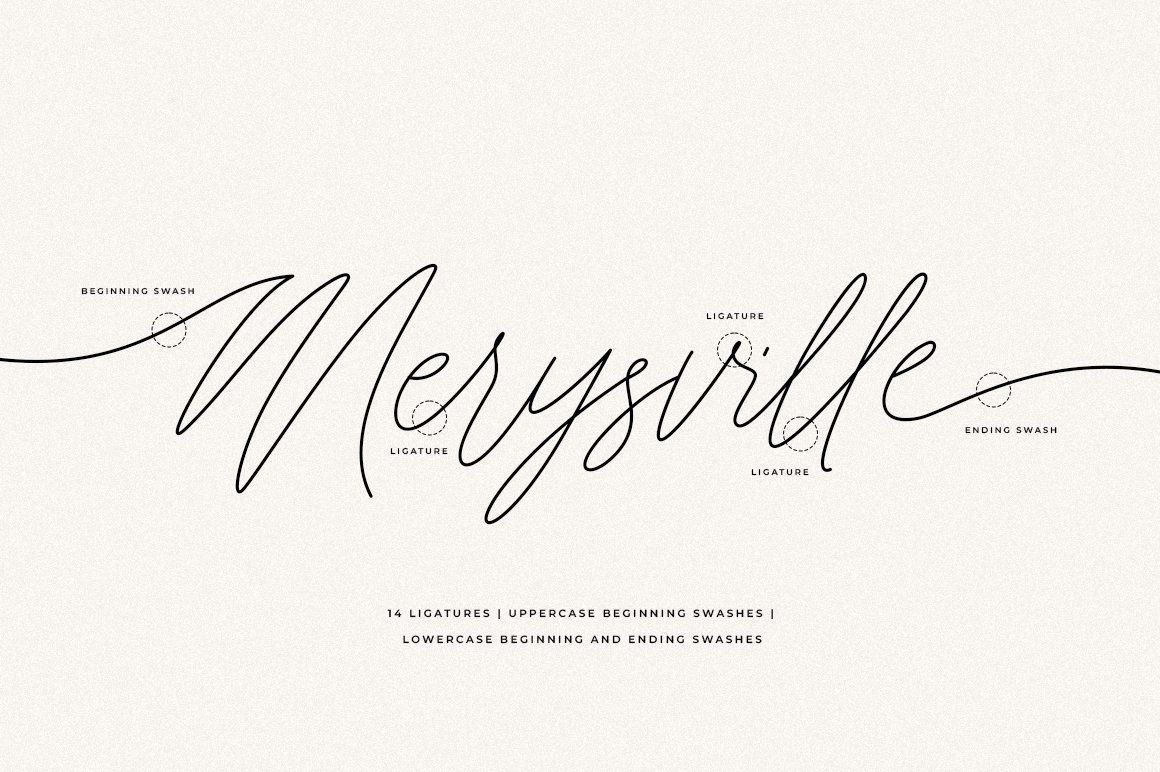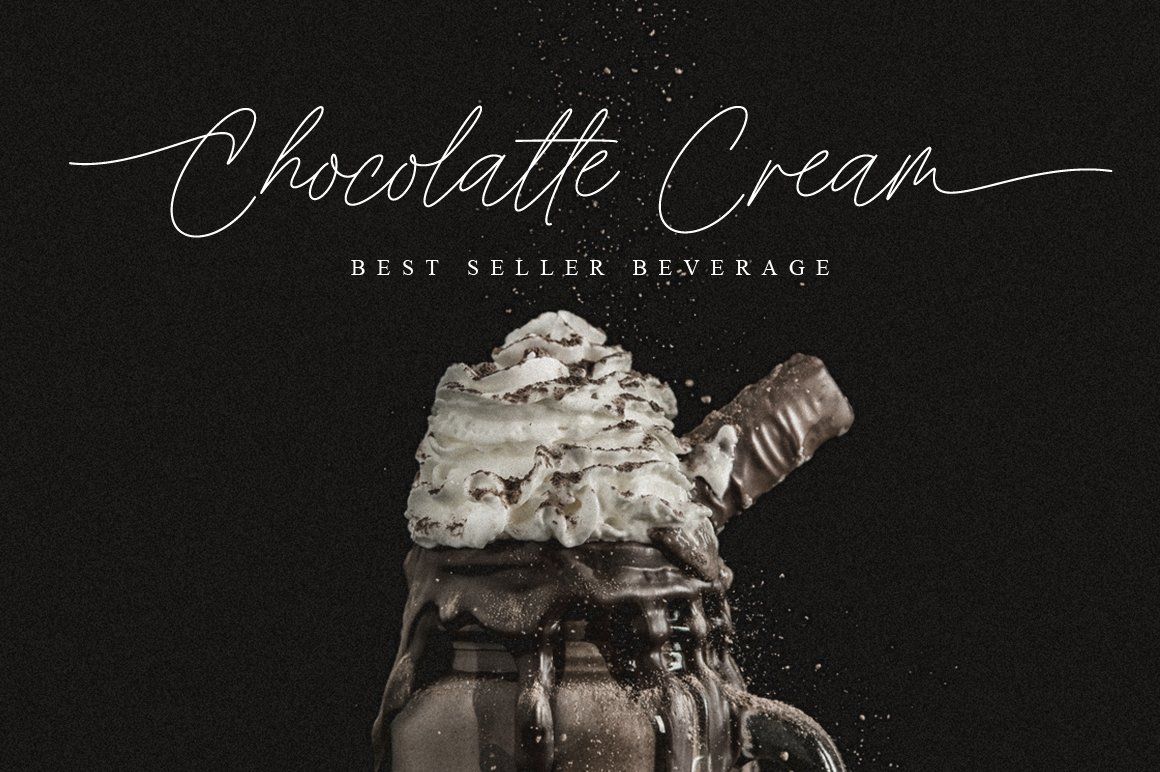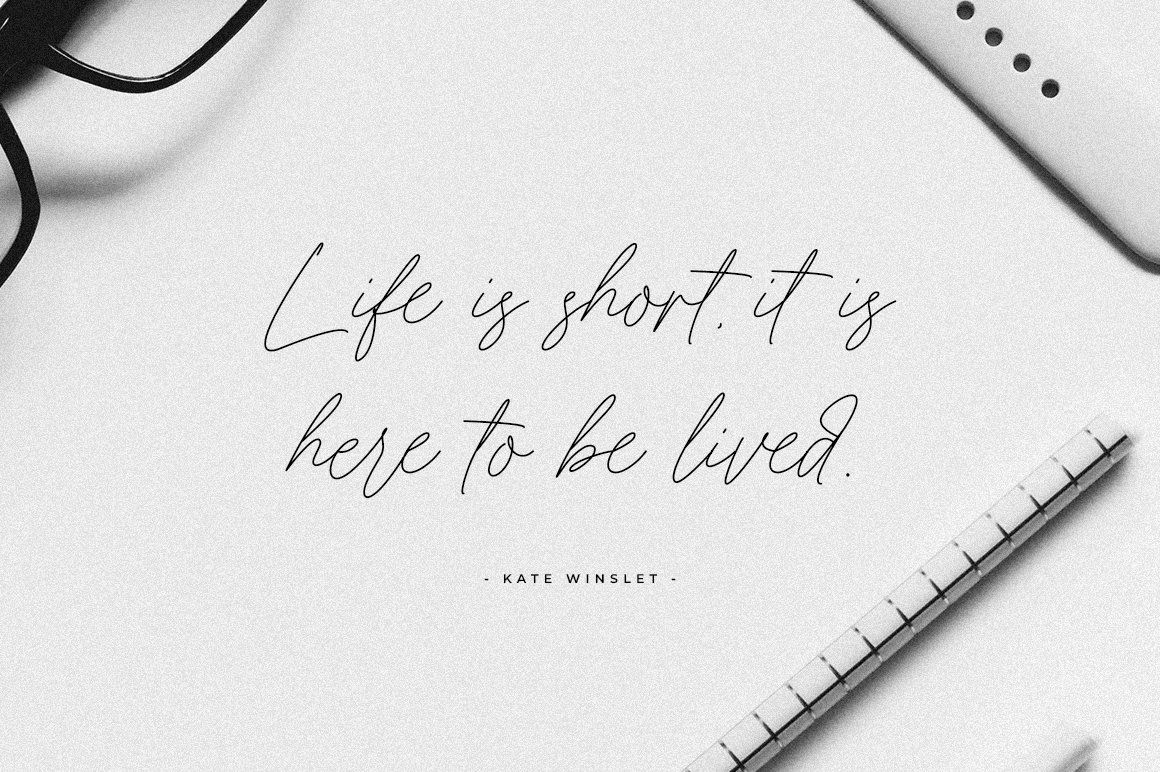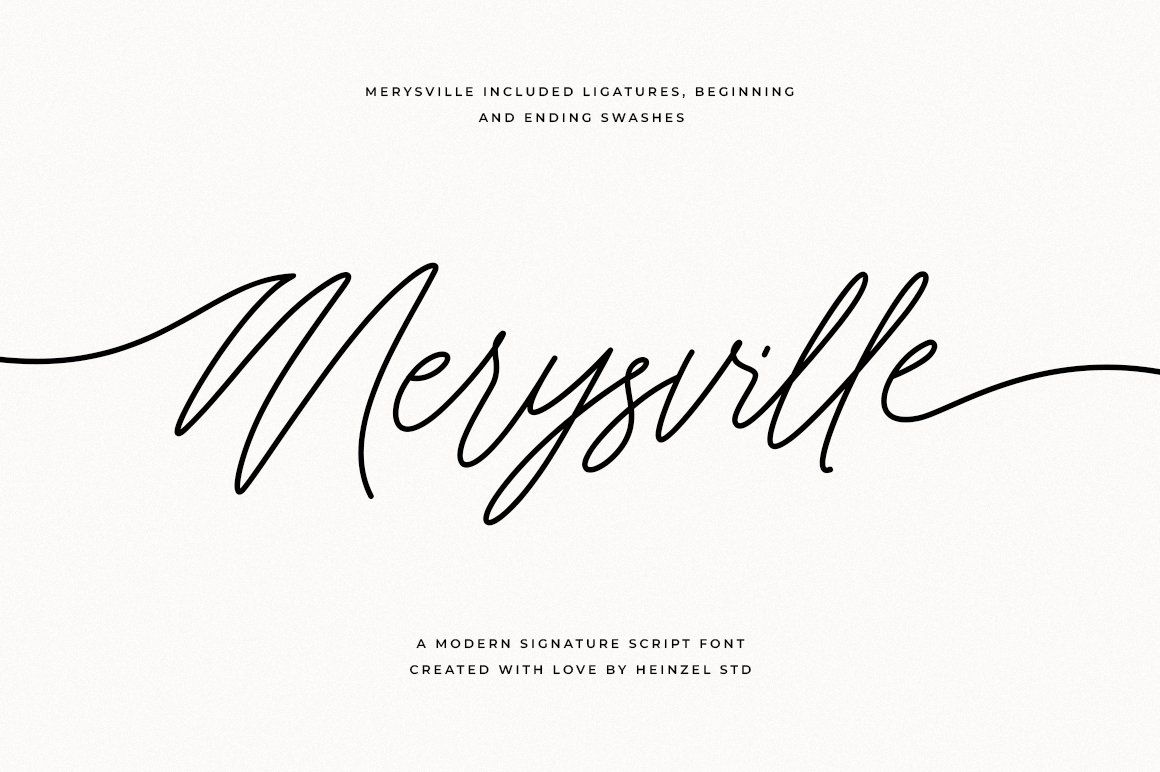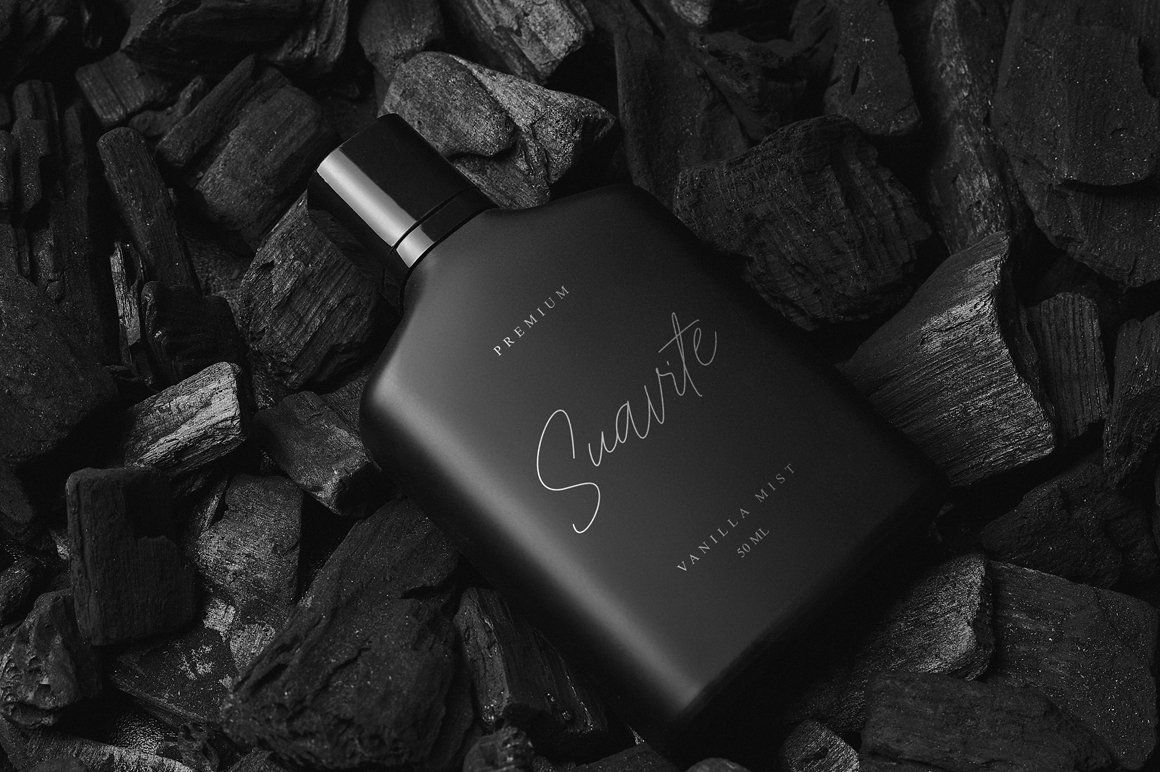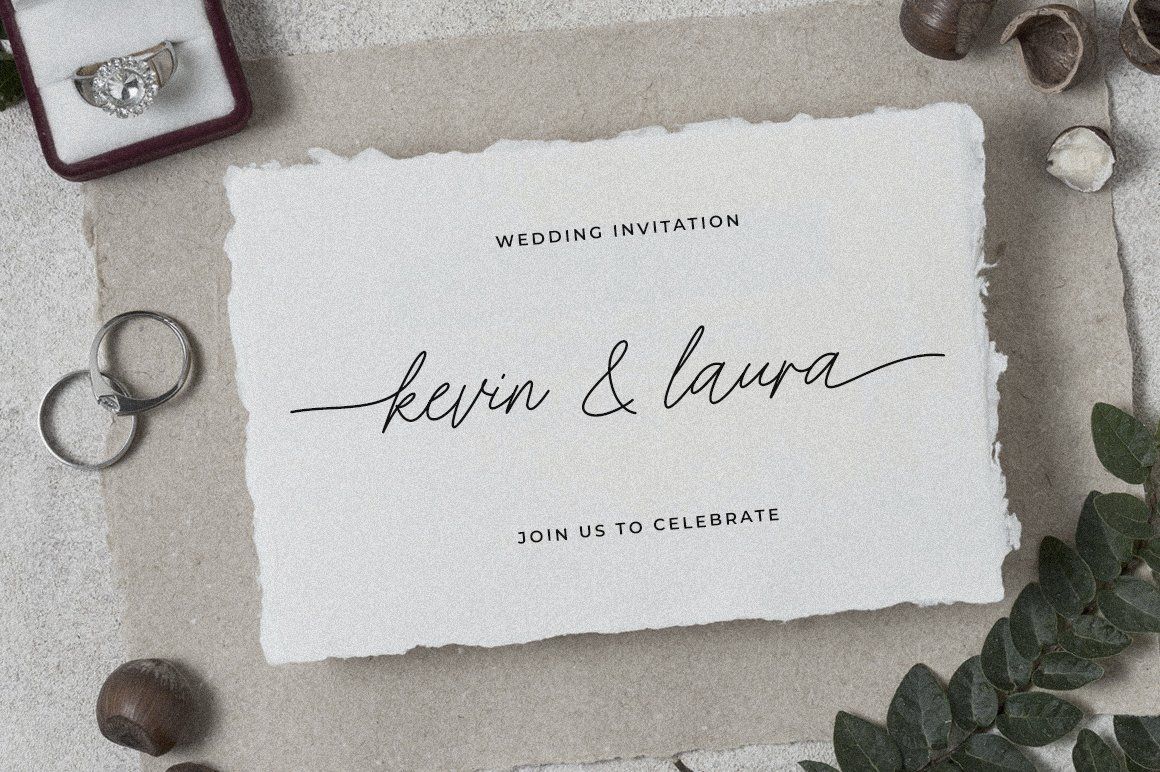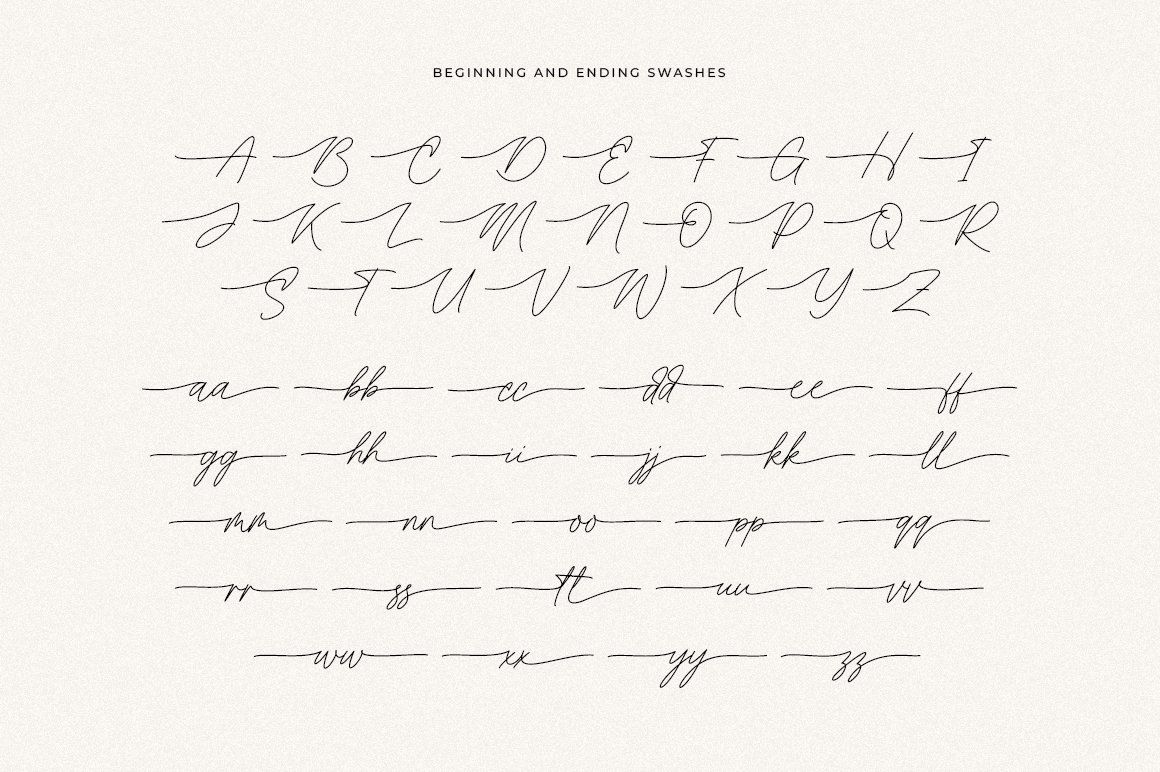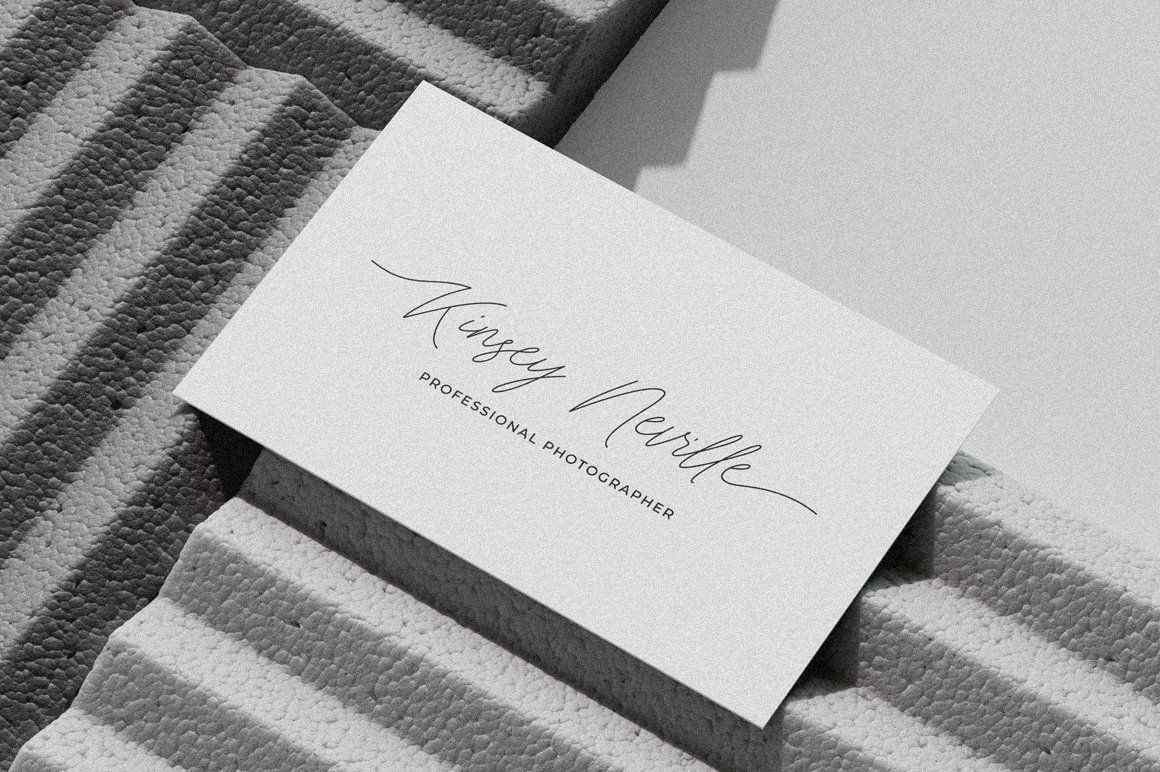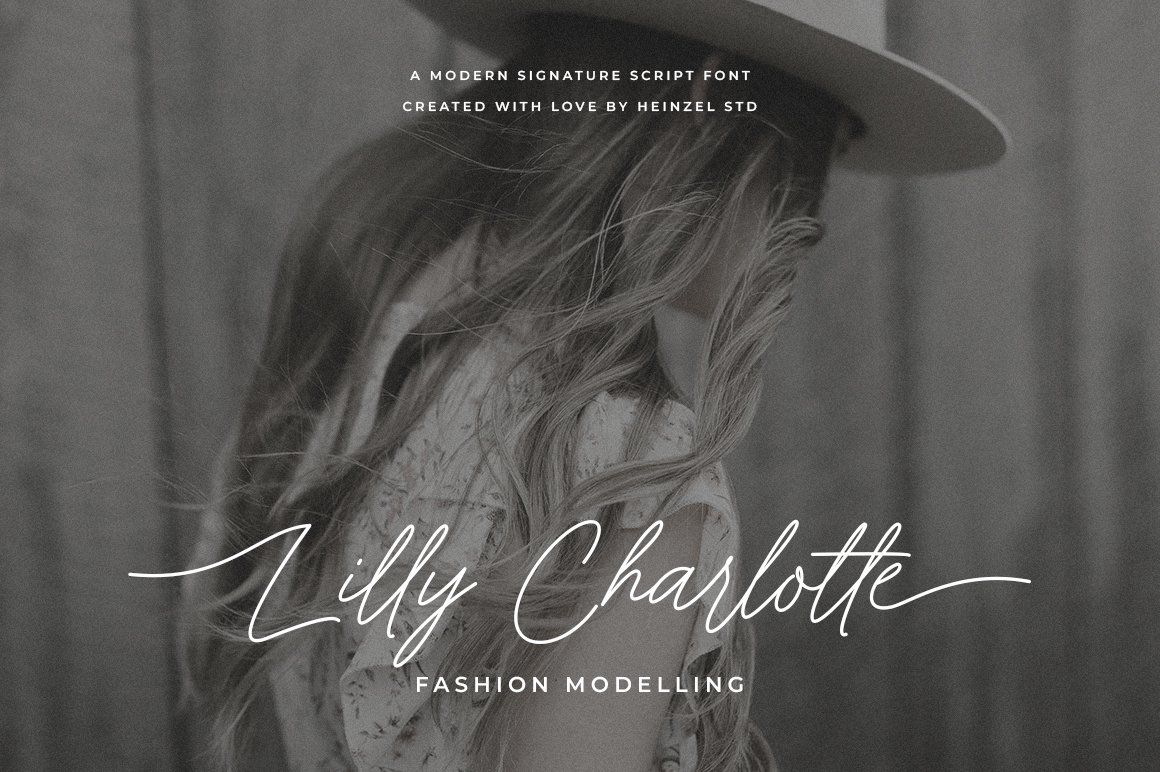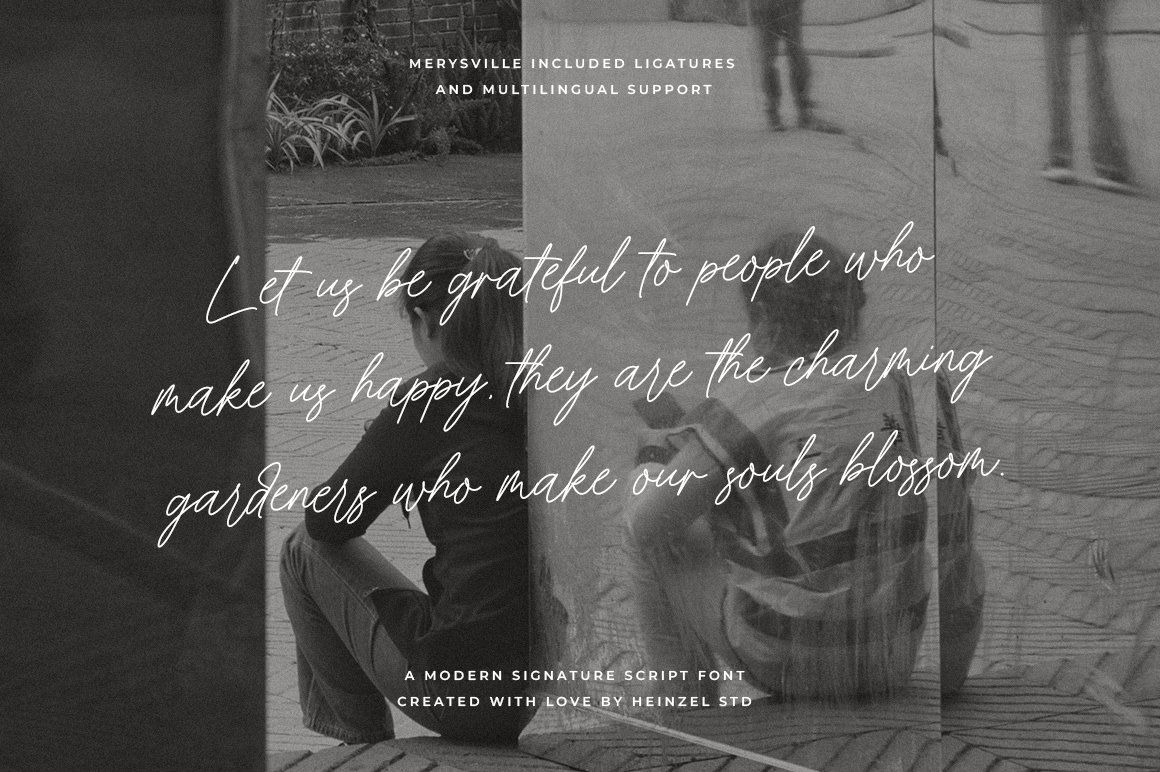
Merysville Modern Signature Font – Elegant Script Typeface
Merysville is a refined modern signature font designed to bring elegance, fluidity, and a personal touch to your creative projects. Inspired by natural handwritten strokes, this script font features smooth curves, balanced spacing, and a stylish flow that mimics authentic signature writing.
Crafted with versatility in mind, Merysville comes with a rich set of ligatures, stylistic alternates, and beautifully designed beginning and ending swashes. These features allow you to customize each word effortlessly, creating a unique and sophisticated look for every design. Whether you’re working on branding, wedding invitations, logos, social media graphics, or packaging, Merysville adds a luxurious and modern aesthetic.
Its clean yet expressive character makes it perfect for both minimal and decorative layouts, ensuring readability while maintaining artistic flair.